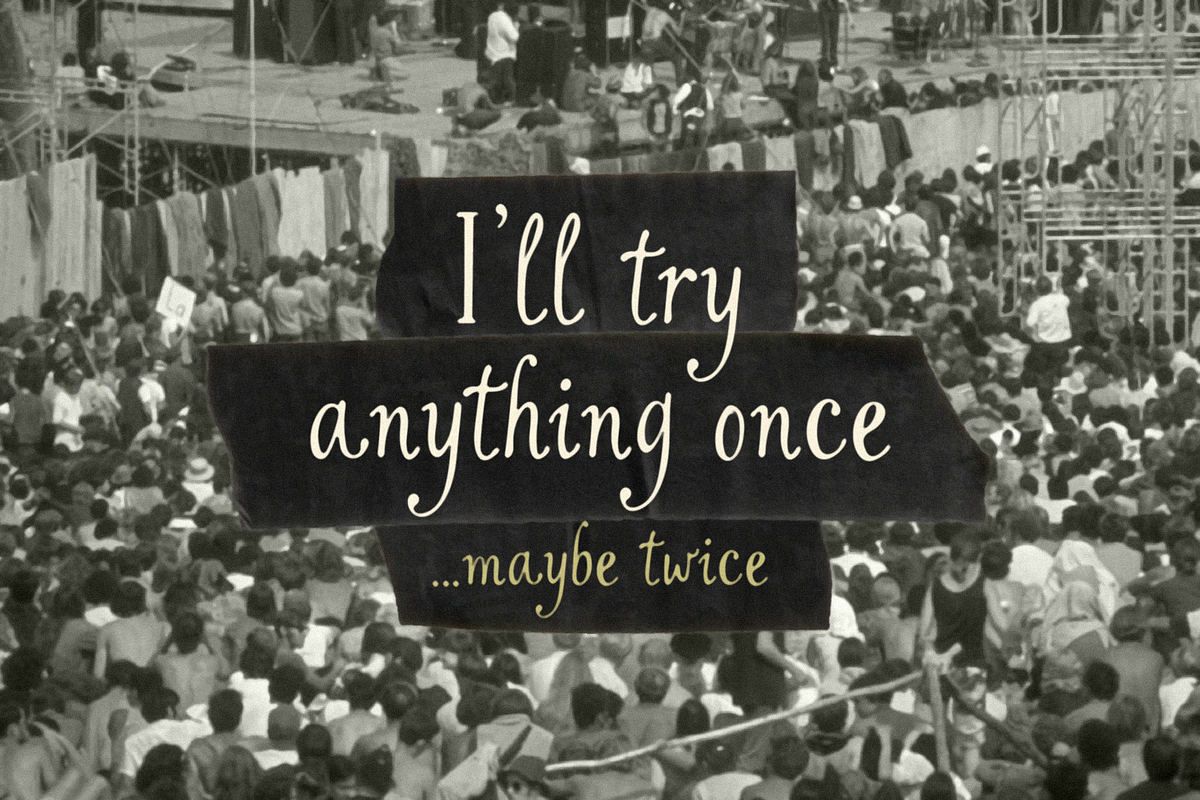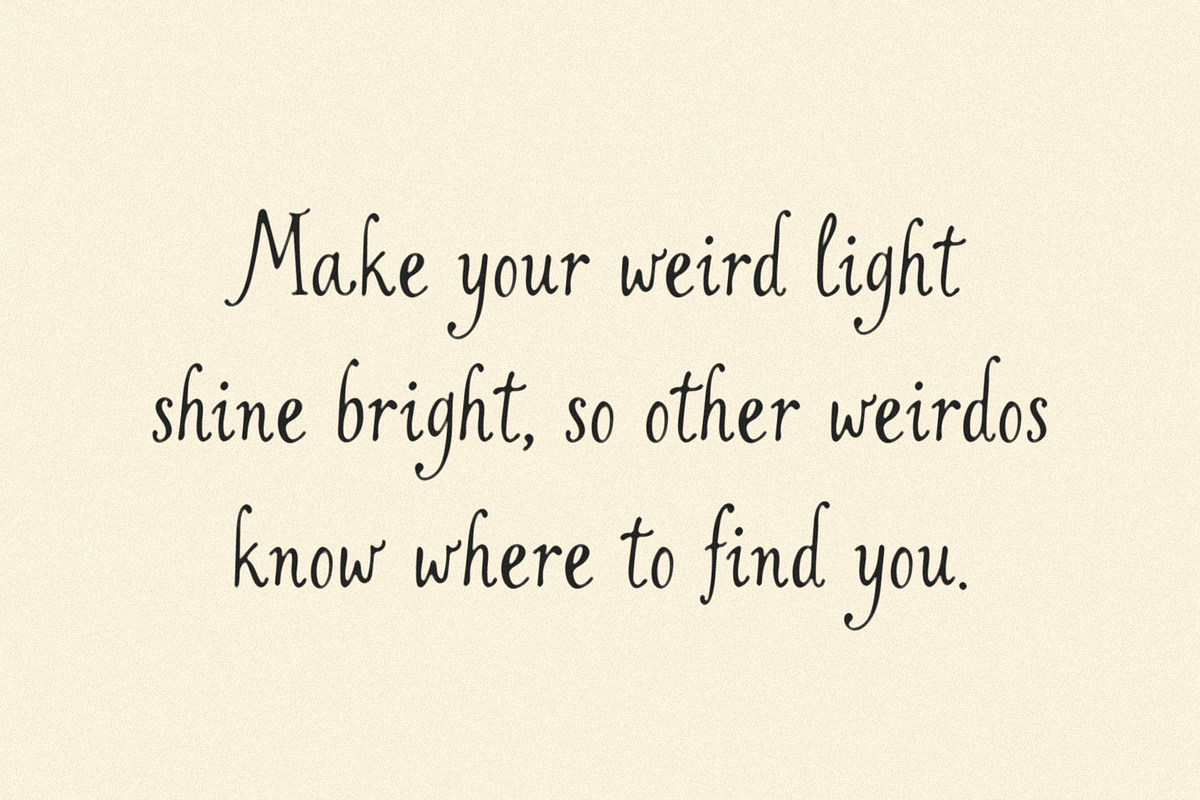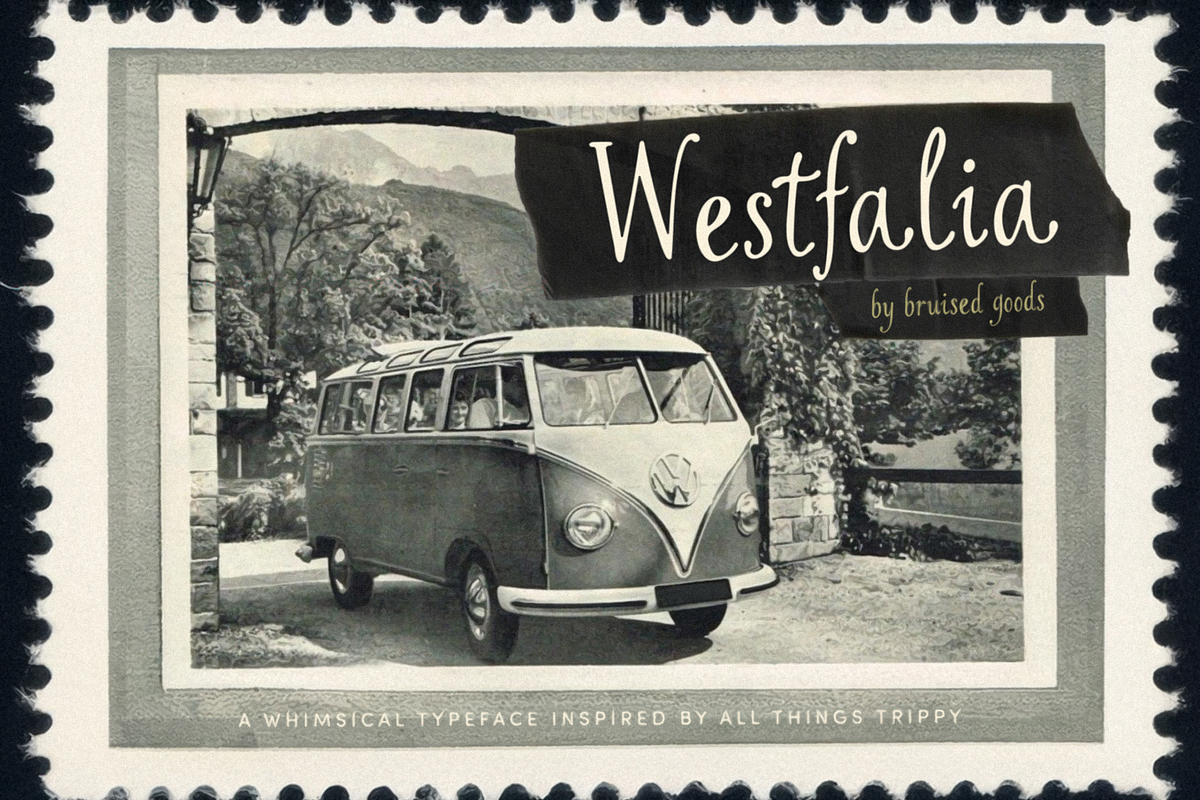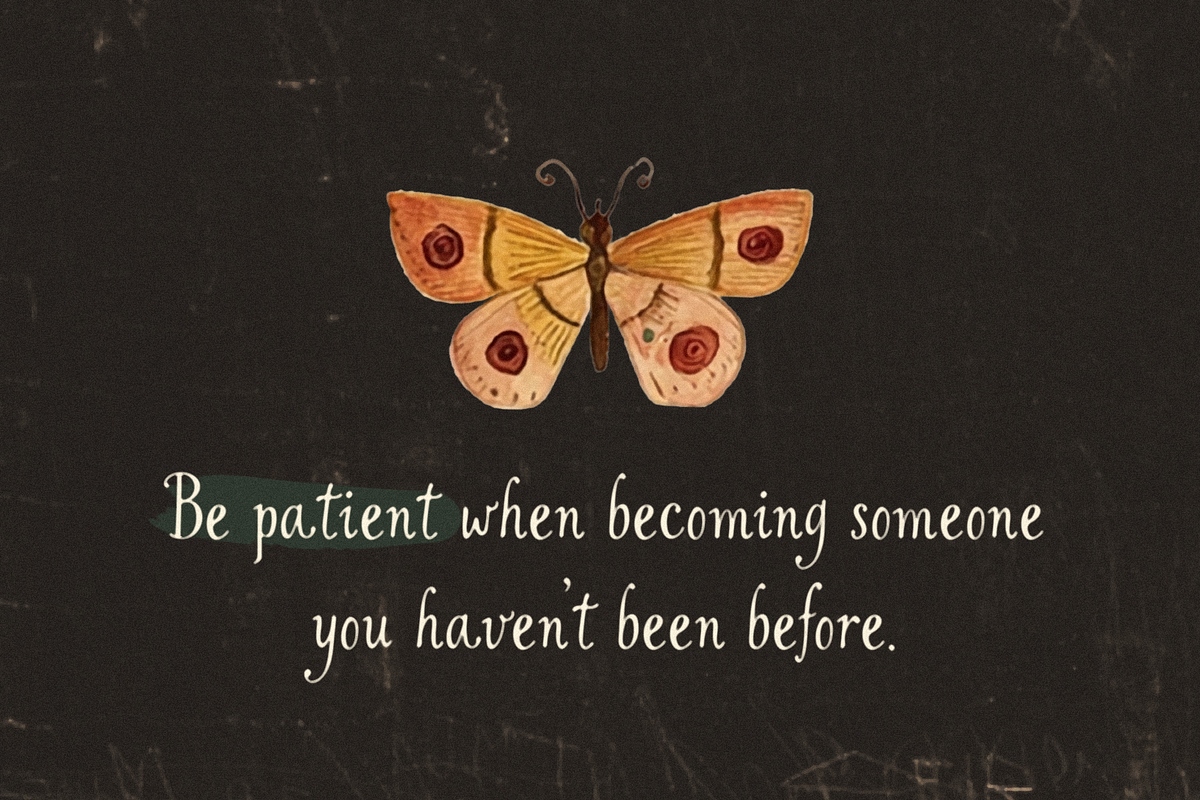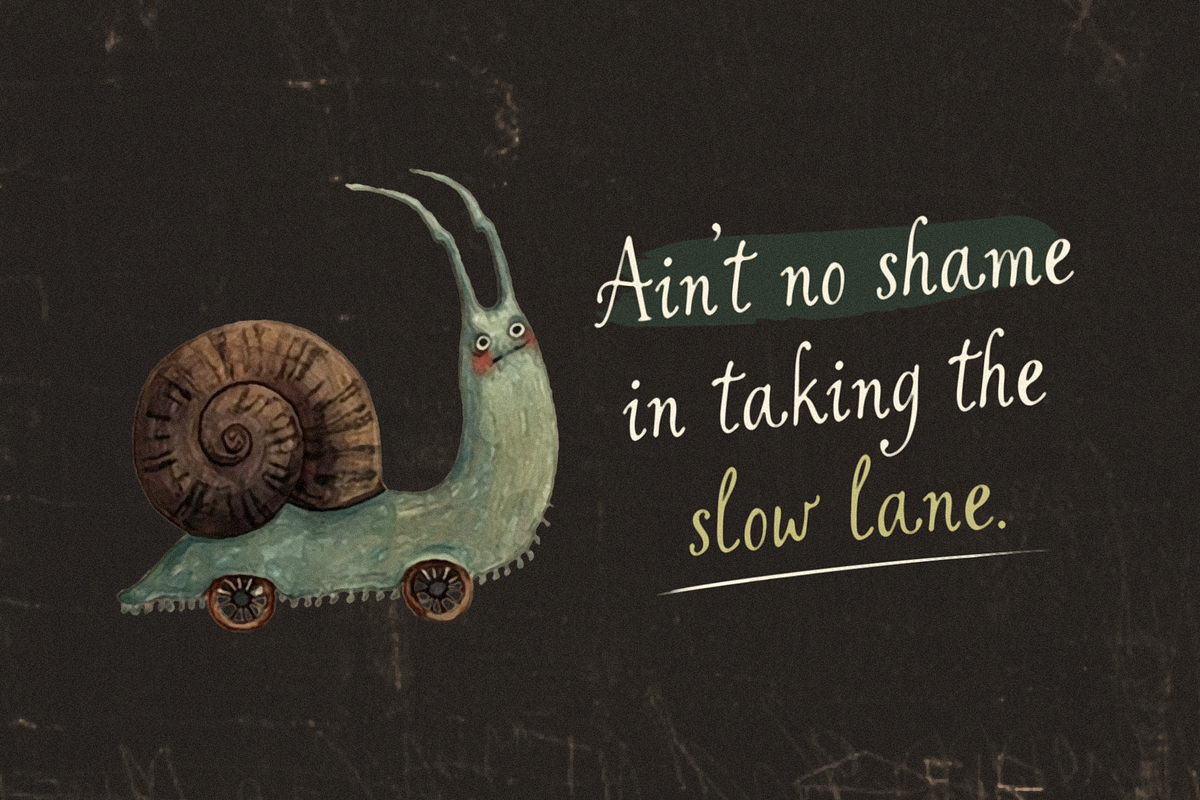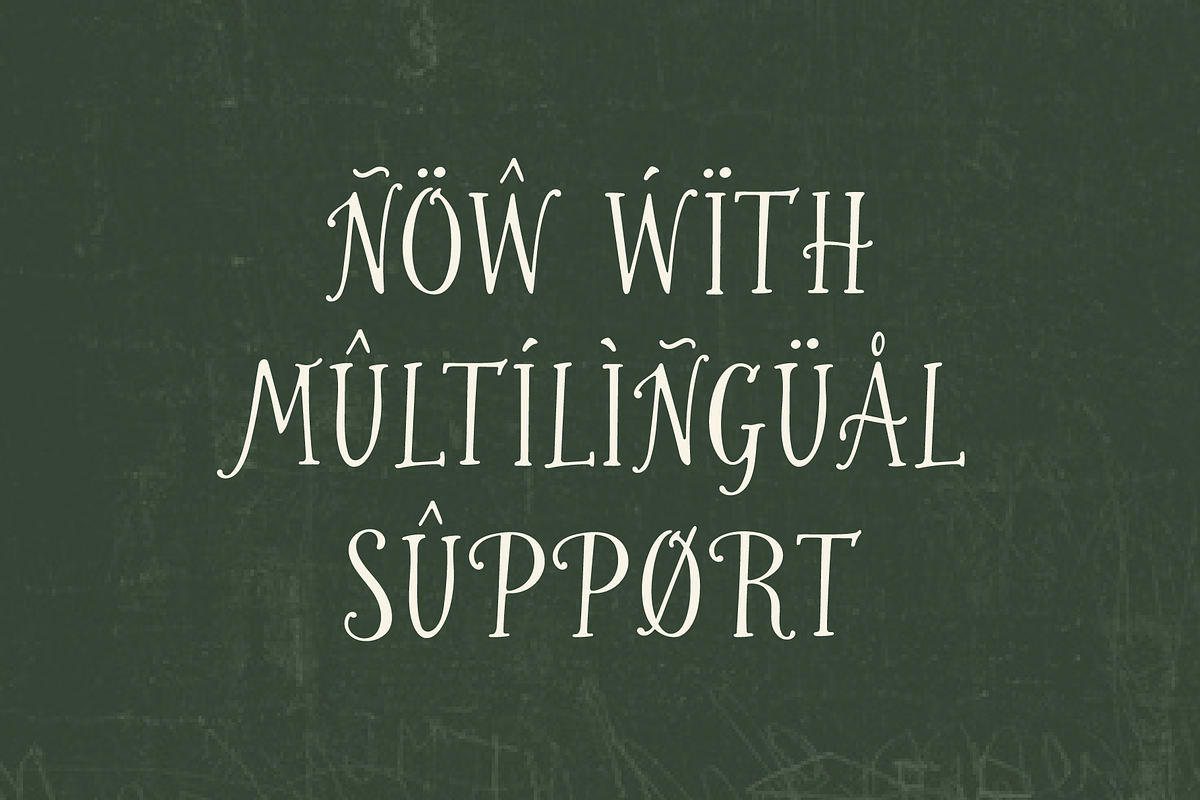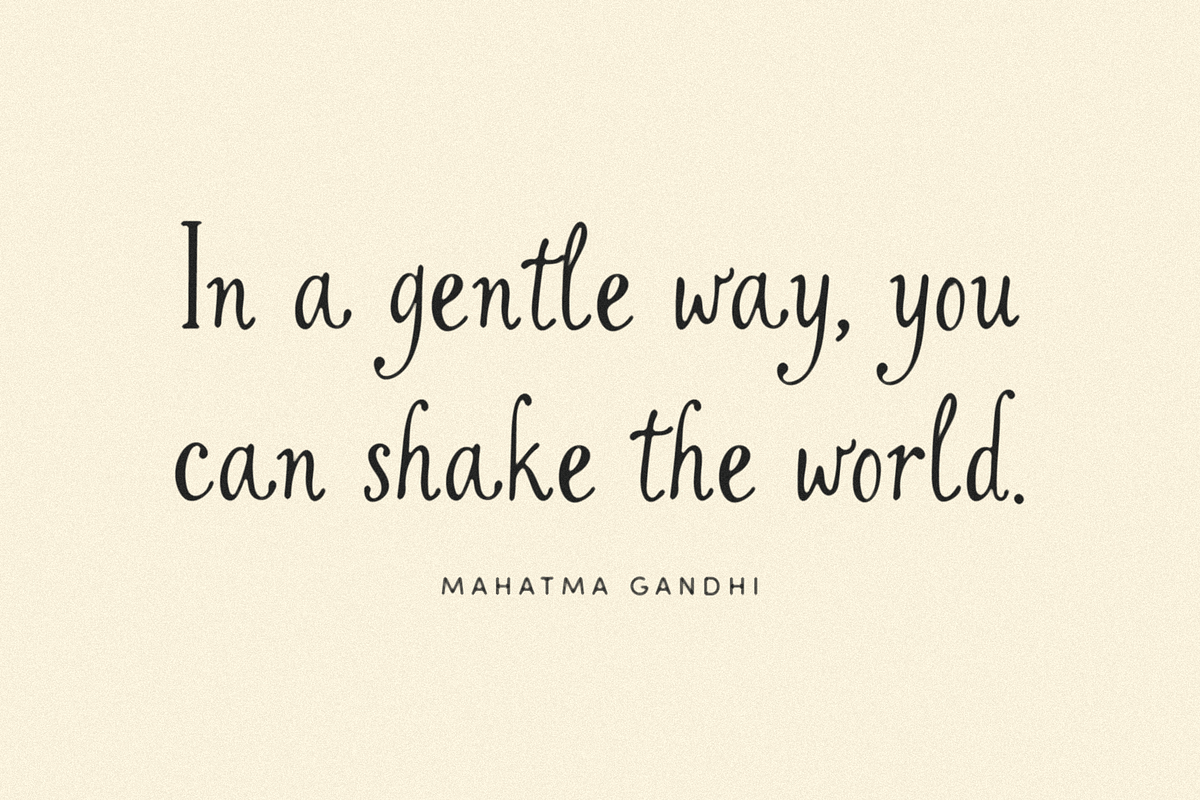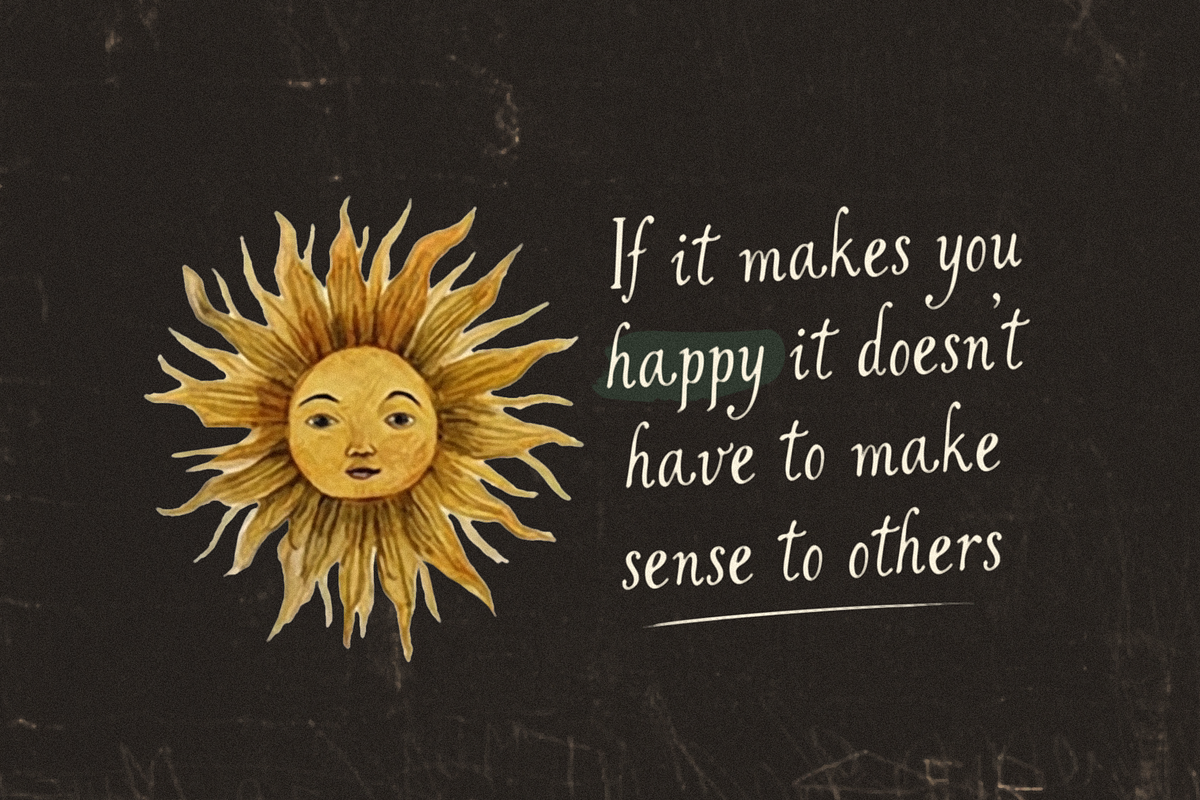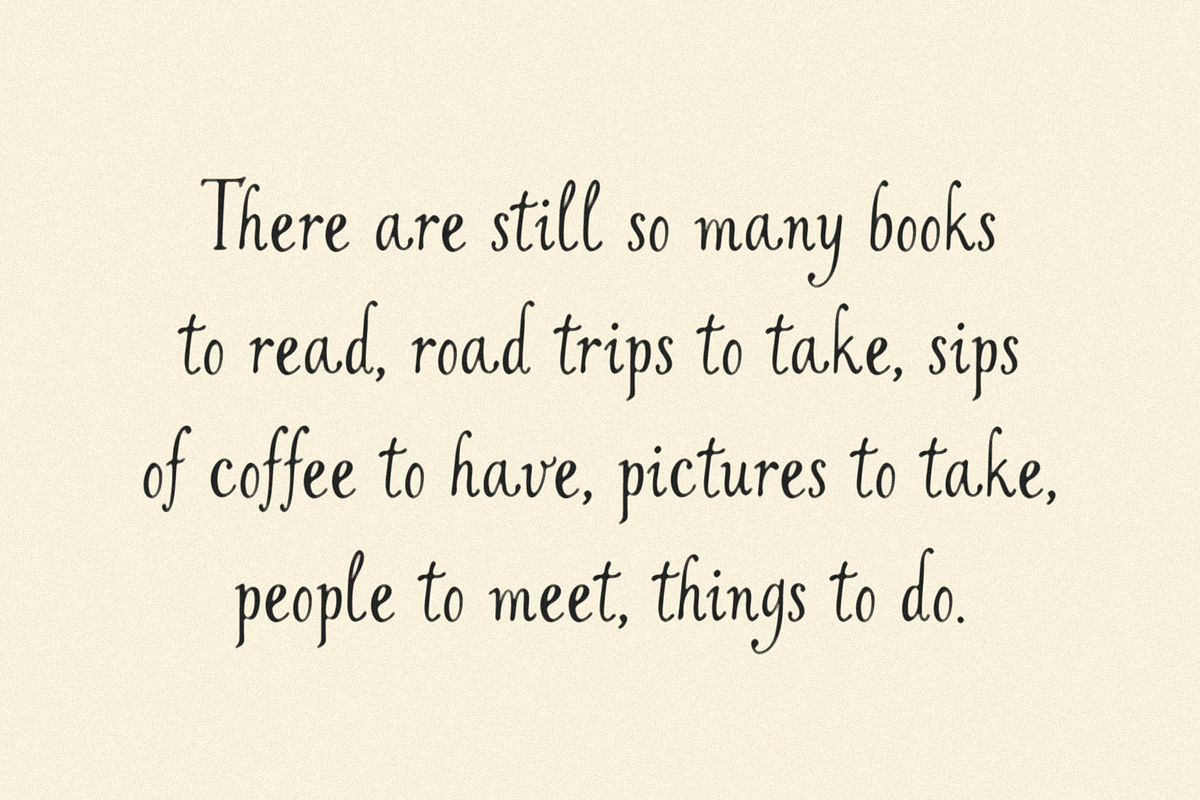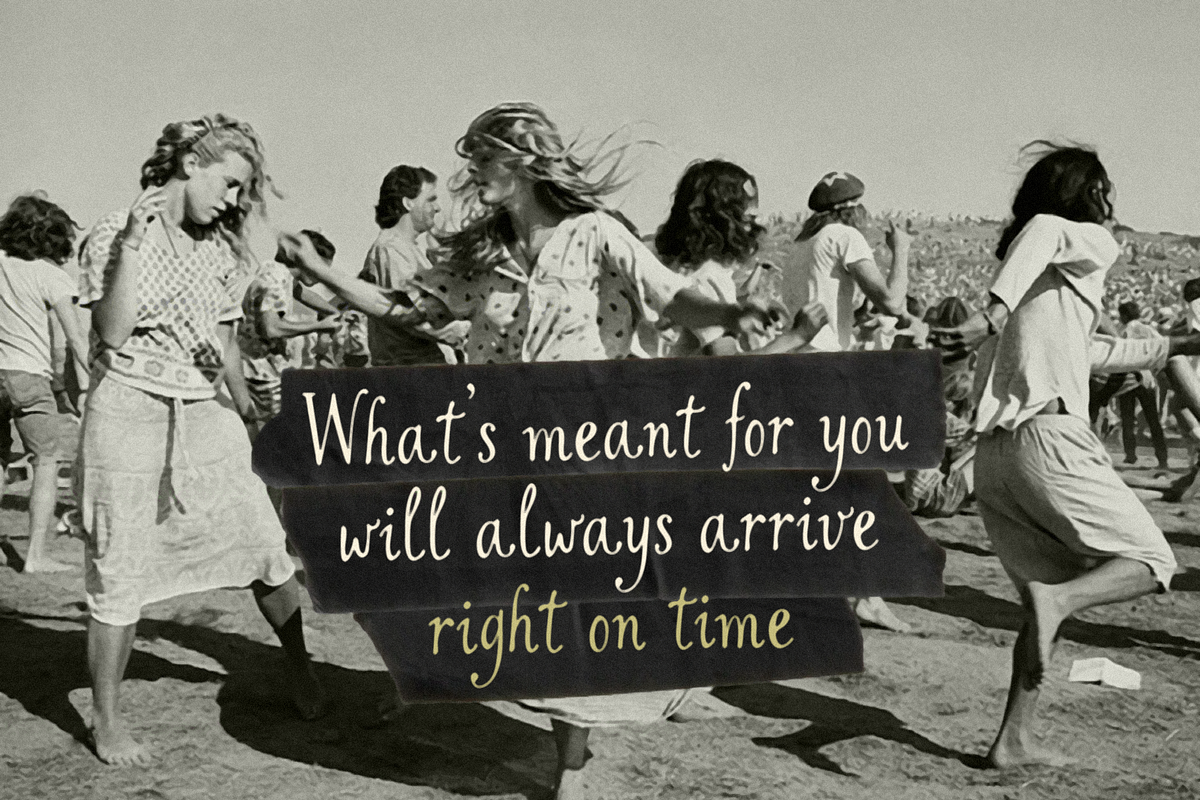
Westfalia
WESTFALIA – A whimsical typeface inspired by all things trippy. Made by Bruised Goods in sunny California.
172 Glyphs Total: Uppercase and Lowercase Characters, Numbers, Symbols, and Punctuation. Language Support: Danish, English, French, German, Irish, Italian, Portuguese, Spanish, Swedish, and Swiss German.